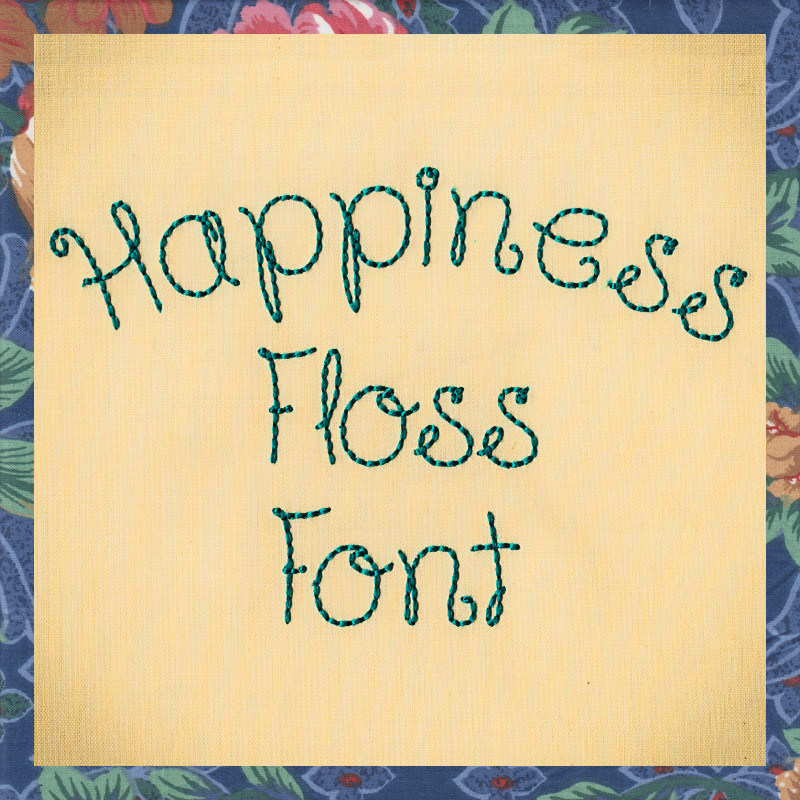
799 Happiness Floss Font
799 Happiness Floss Font comes in 1", 1.5", 2", 2.5", 3", 3.5", 4", 4.5", 5", 5.5" and 6" heights based on the capital "A". All sizes include uppercase letters, lowercase letters, numbers and 13 punctuation marks. All sizes are finished in Floss Stitch. ● See the Alignment and character charts above to view individual letters and letter placement.